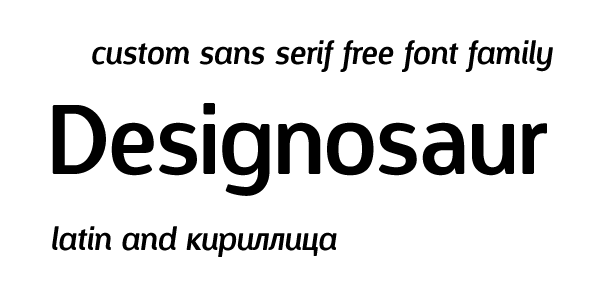
Preview and download Designosaur Font. Created by Archy Studio in Basic Sans serif styles with 100% Free license.
We proudly present to you «Designosaur». Totally New FREE font that is intended for website designers and bloggers! Enjoy our Clean, Original and Legible font. It can be used 100% FREE, including online resources, website templates, cms themes or software! |